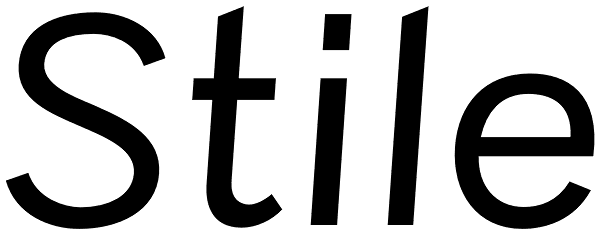
Stile
Are you looking for a true cursive sans serif? Stile is a true cursive with moderate inclination. Its cursive character has mainly to do with writing-speed. Therefore it may serve also as copy font and not only for emphasizing purposes. Stile has a...